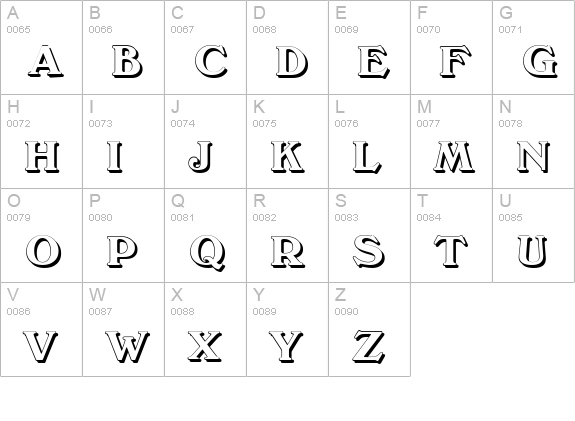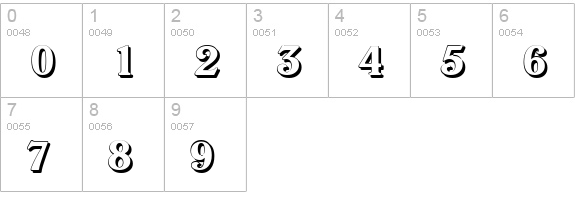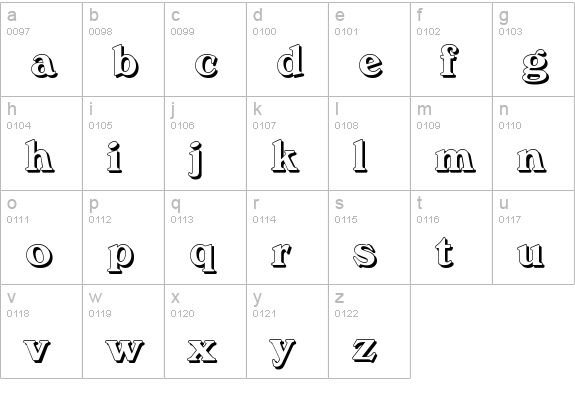
VeronaShadow-Bold is a strong, high-contrast variant in the VeronaShadow typeface family \xE2\x80\x94 well suited to headlines, attention-grabbing titles, and strong calls-to-action.
VeronaShadow-Bold font is a striking and bold typeface that exudes elegance and sophistication. Its sharp edges and intricate details make it perfect for adding a touch of drama to any design project. With its strong presence and commanding presence, VeronaShadow-Bold font is sure to make a statement. The best part? VeronaShadow-Bold font is available for free download at FontsMarket.com. This means you can easily access this stylish and versatile font to elevate your creative endeavors without any cost. Whether you're designing a logo, creating marketing materials, or crafting eye-catching posters, VeronaShadow-Bold font is the ideal choice for adding a touch of flair and personality to your work. Download it today and unleash your creativity with this stunning typeface.